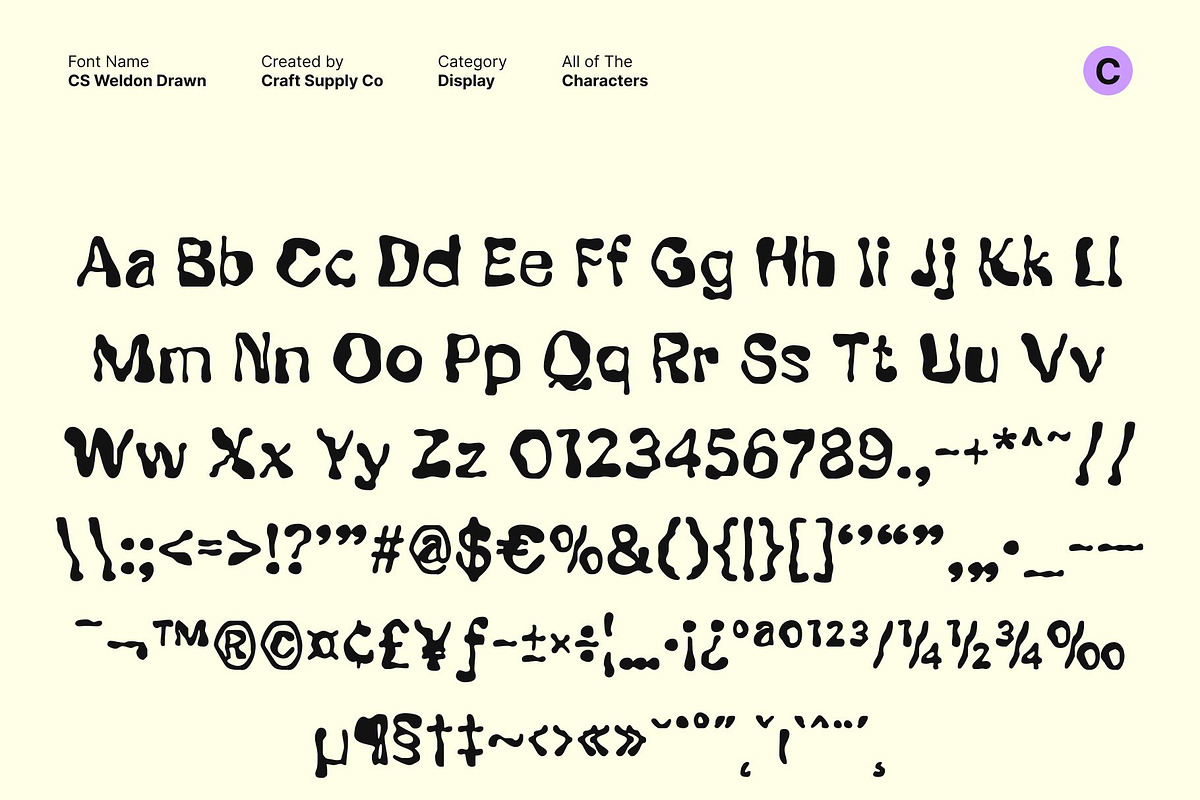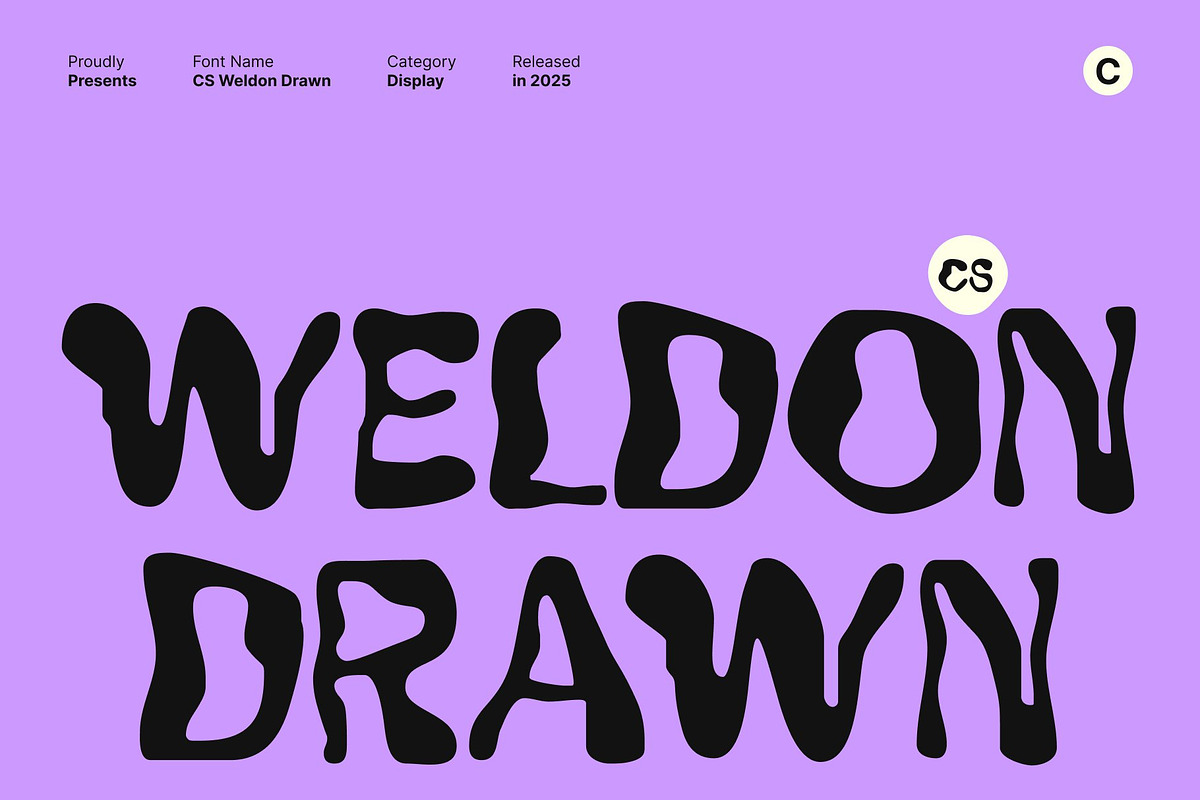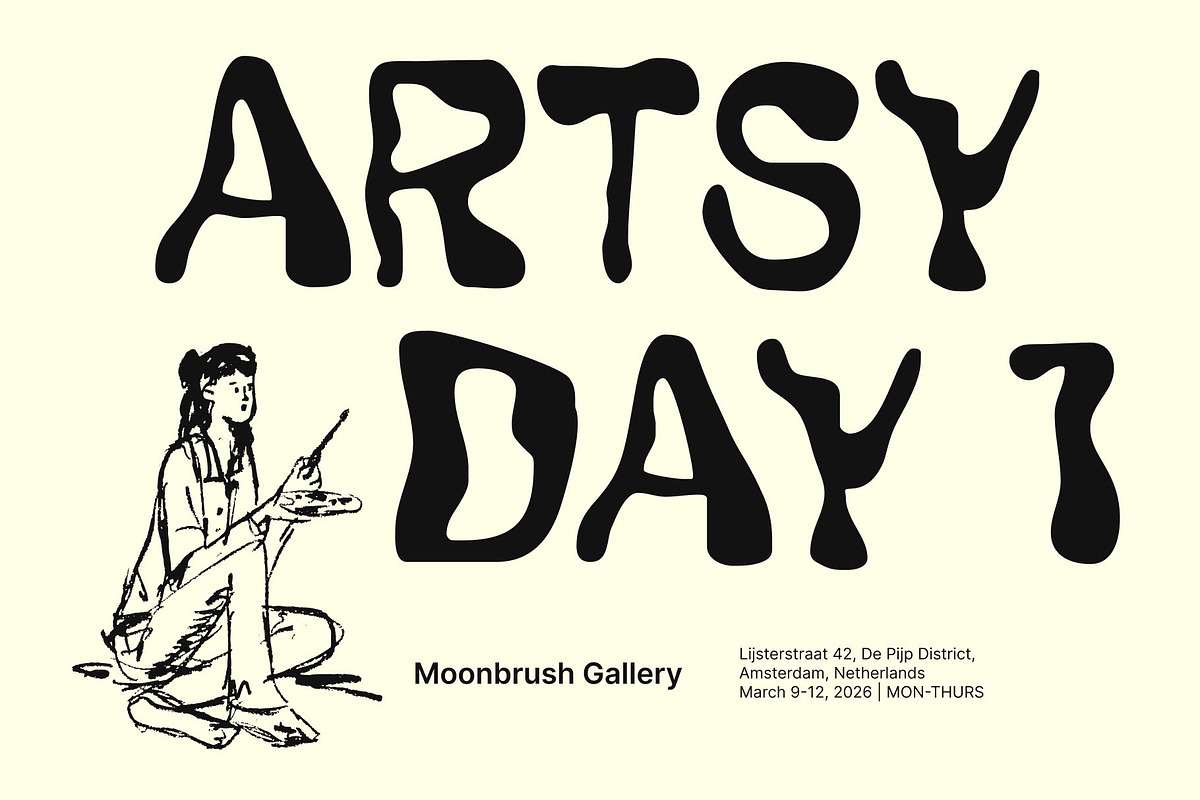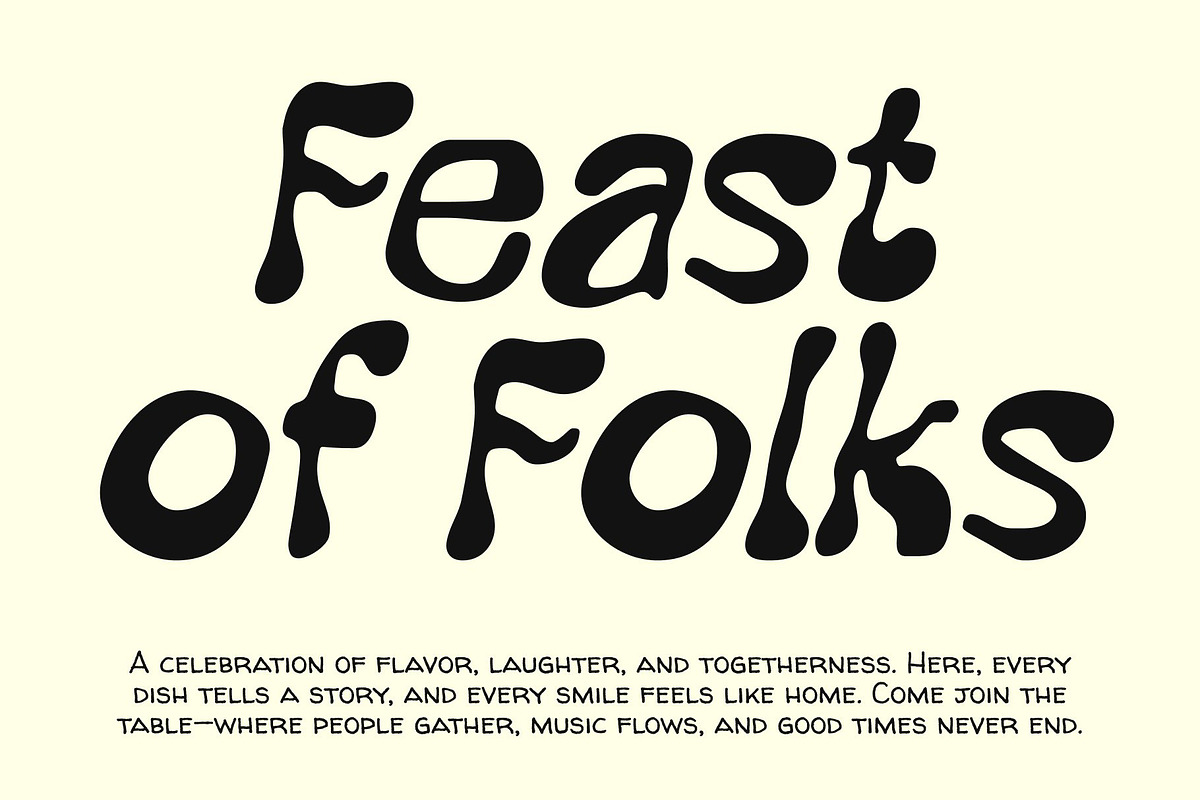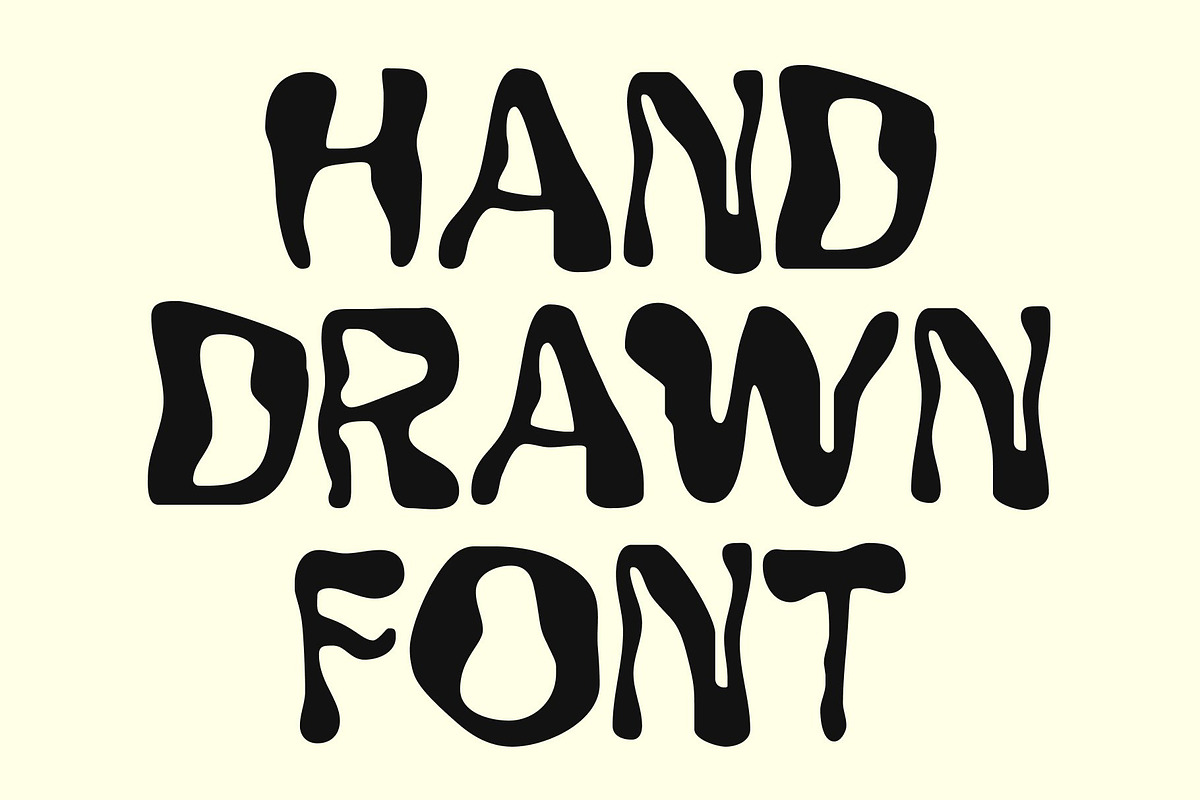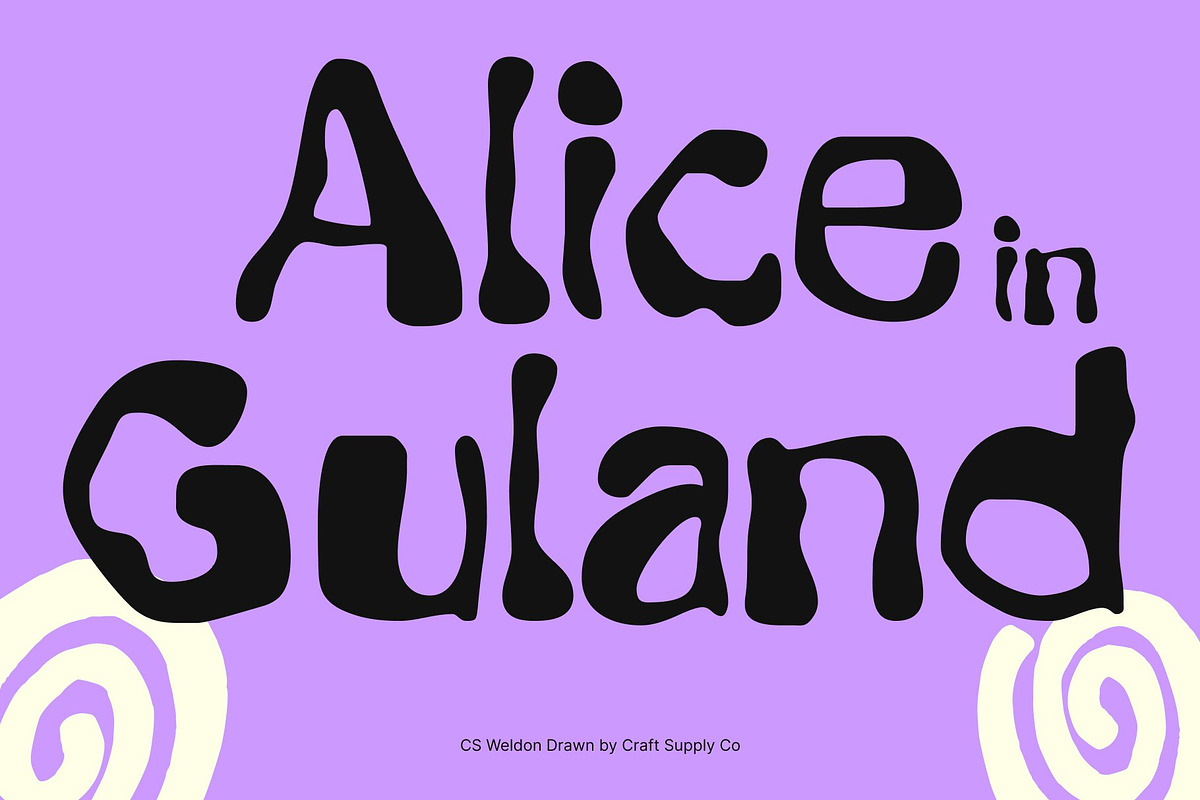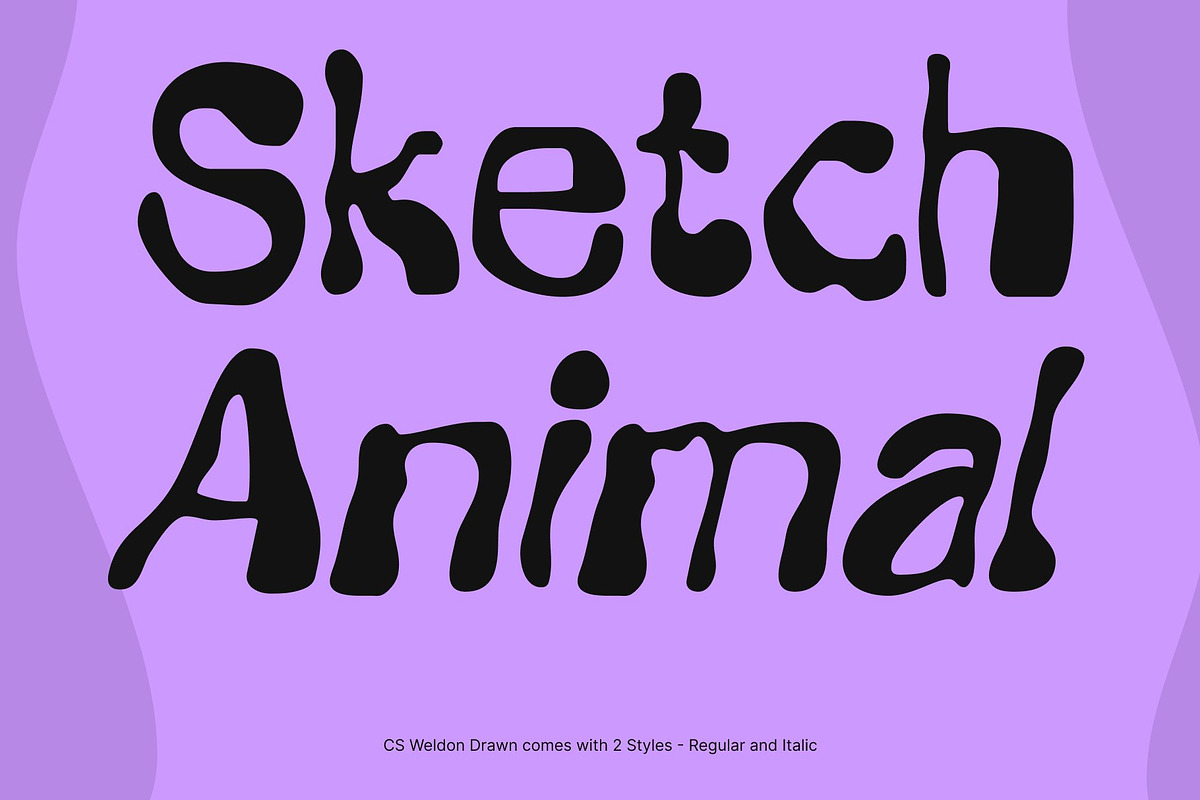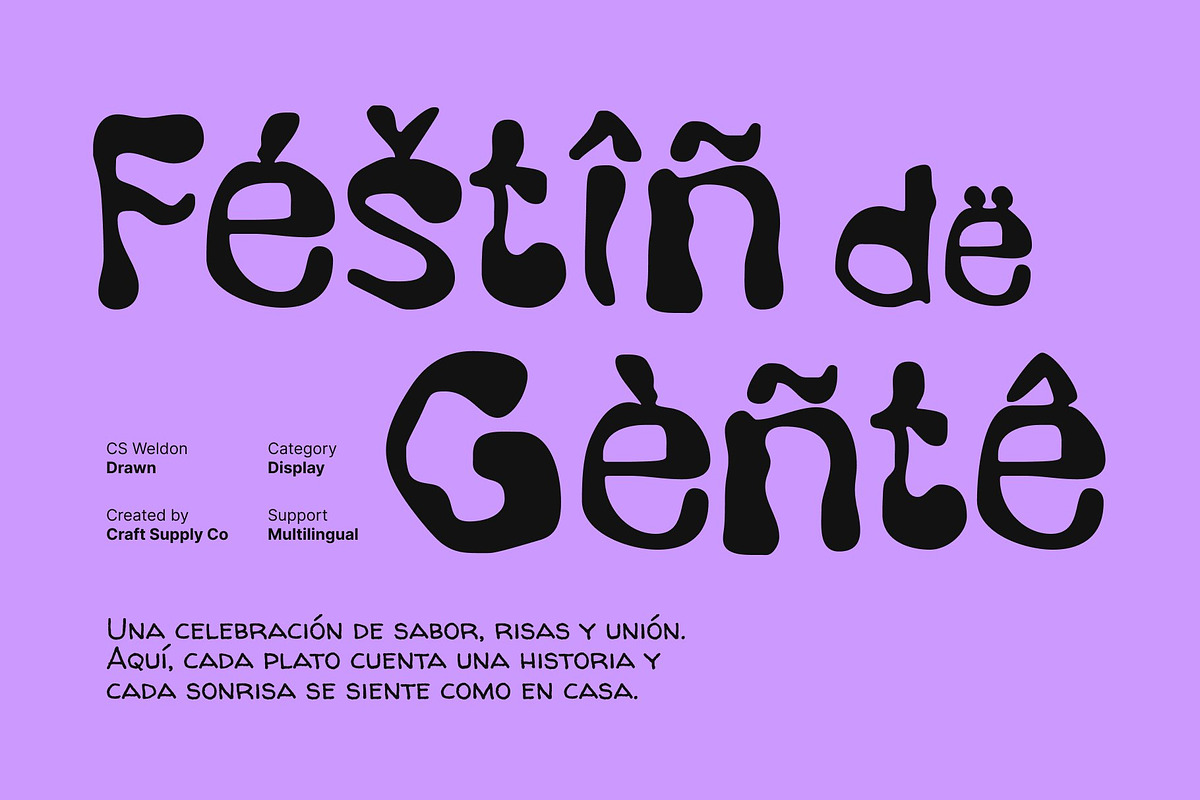
CS Weldon Drawn
CS Weldon Drawn – Etchy Display Font with Artistic Imperfection
Imperfect Shapes with Hand-Drawn Energy This etchy display font embraces charming imperfections, featuring irregular shapes and sketch-like textures that bring a lively, handcrafted spirit to every character. Its rough contours and spontaneous strokes make the typeface feel natural, expressive, and full of personality just like a true hand-drawn sketch.
Fun, Friendly, and Playfully Artistic Designed to radiate warmth and creativity, this font delivers a fun and approachable vibe. Its quirky edges and textured lines add an artistic flair that feels spontaneous and joyful, making it a great choice for designs that want to feel friendly, whimsical, and full of energy.
Perfect for Playful and Children-Oriented Designs Ideal for kids’ branding, playful posters, activity books, educational materials, and cheerful visual identities, this font enhances any project with a sense of curiosity and lighthearted fun. Its informal shapes help create approachable and engaging communication for younger audiences.
Expressive Style for Experimental Projects Beyond children’s themes, the organic sketchy style also fits artistic or experimental designs, creative branding concepts, handmade product packaging, or expressive illustrations. It adds authenticity and human touch to any design seeking a crafted, imaginative visual language.